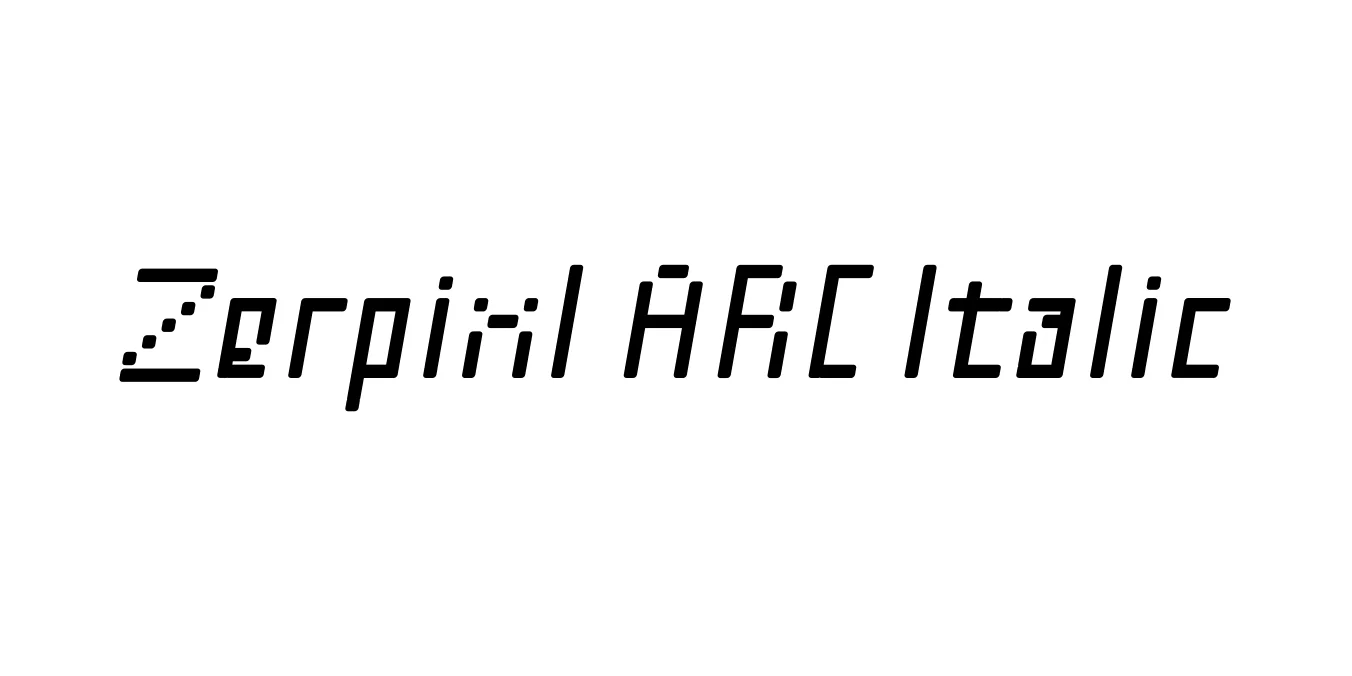
Zerpixl ARC Italic
Zerpixl ARC Italic is a stylized pixel font designed to capture the nostalgic essence of 8-bit arcade machines and early home computing interfaces. It features a unique italicized slant that adds motion and dynamic energy to the traditionally static pixel grid, making it a standout choice for retro-gaming enthusiasts and digital artists seeking a vintage flair.
Developed to bridge the gap between low-resolution aesthetics and modern digital displays, this font maintains high legibility while preserving its chunky, geometric roots. Zerpixl ARC Italic is frequently utilized in indie game development for HUD elements, as well as in creative branding projects that require a techno-centric or cyberpunk visual language.
Zerpixl ARC Italic Best Uses
Perfect for HUD elements, scoreboards, and dialogue boxes in retro-style RPGs or platformers.
Ideal for tech startups, gaming hardware logos, and esports team identities.
Excellent for poster designs, stickers, and merchandise with a 1980s or 1990s tech aesthetic.